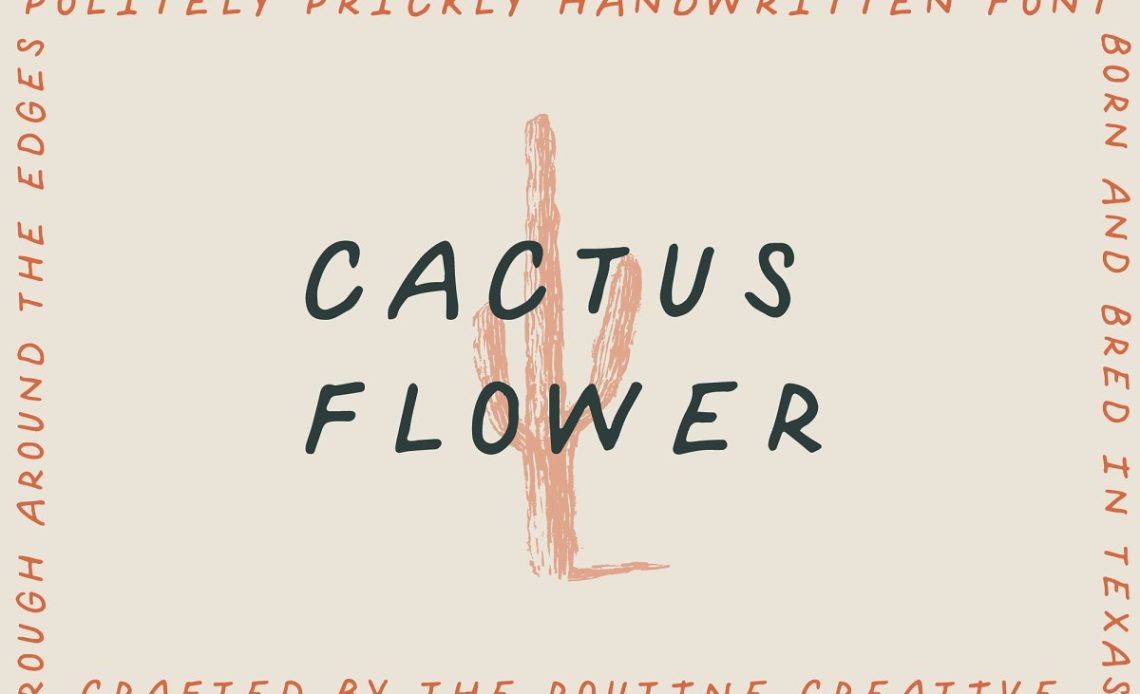
Looking for the best fonts for writing a CV that will make you stand out? Look no further than Cactus Flower, the newest addition to our fonts collection! This handwritten font, created by the talented Alex Cottles, is sure to add a touch of personality to any design.
Cactus Flower is the perfect blend of rough and smooth, with a politely prickly look that's sure to catch the eye. It's the ideal font for anyone looking to add a handwritten touch to their designs, without sacrificing readability or professionalism.
But what really sets Cactus Flower apart are the stylistic alternate capitals, which make it incredibly versatile and fun to work with. Whether you're creating a CV, designing a logo, or crafting a social media post, this font is sure to elevate your work and help you stand out from the crowd.
And with features like lowercase characters, uppercase alternates, numbers, and special characters, Cactus Flower has everything you need to bring your designs to life. The OTF file format ensures compatibility with a wide range of software, so you can use this font in all your favorite design tools.